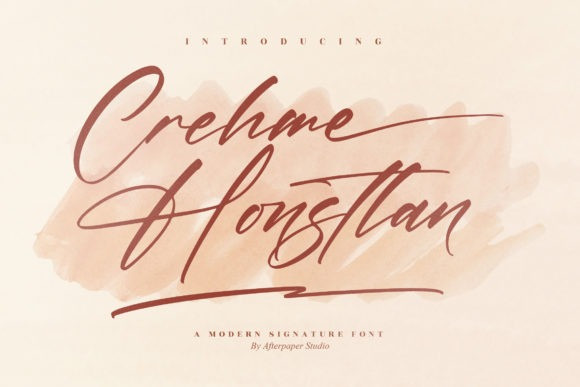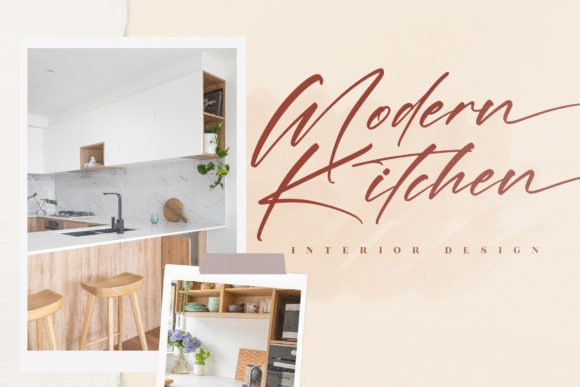
Crehme Honstlan Font
Crehme Honstlan is a sweet, whimsical, flowing and thin script font. Featuring characters that dance along the baseline, this font will add a luxury spark to any design project that you wish to create! Crehme Honstlan is PUA encoded which means you can access all glyphs and swashes with ease!